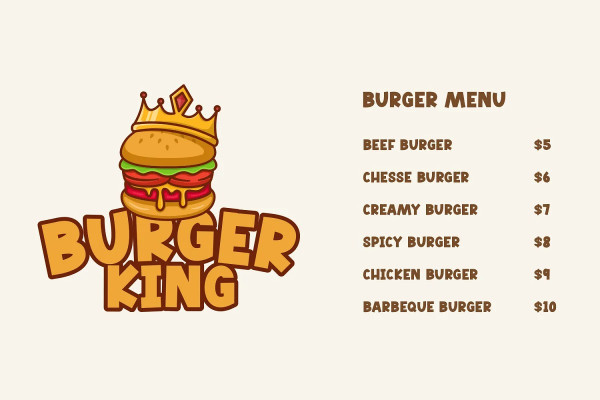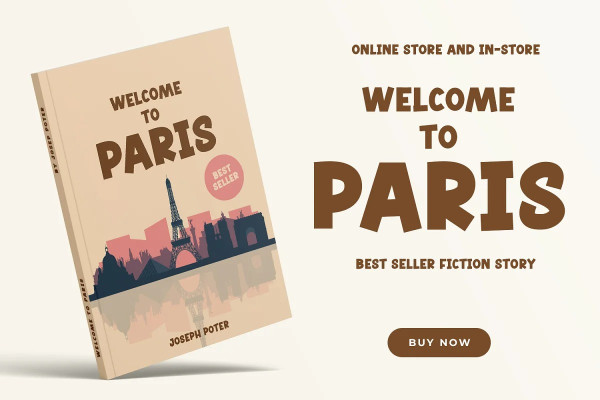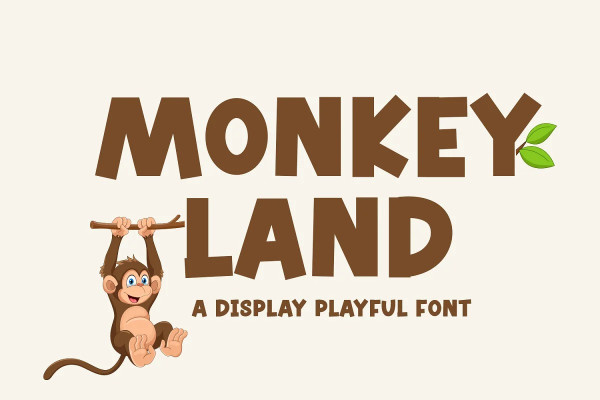
Monkey Land Font
Monkey Land Font, Monkeyland look bold, modern and joyful. This font suitable for logos, packaging designs, posters, business card, cover, broadcast, quotes, books, etc. Let’s we go, to make you business go to next level with monkeyland.